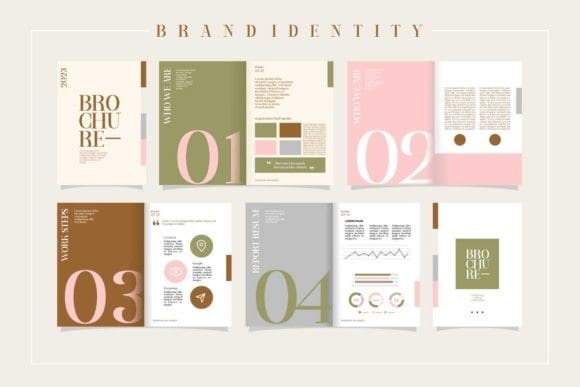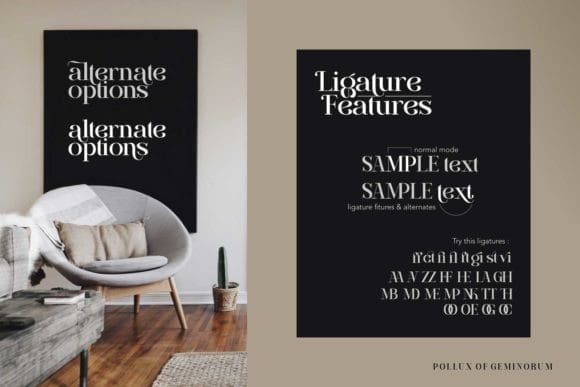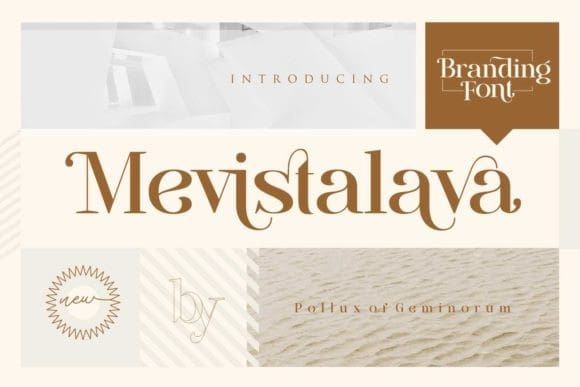
Mevistalava Font
Mevistalava Font is a stylish and distinct serif font. No matter the topic, this font will be an incredible asset to your fonts’ library, as it has the potential to elevate any creation.